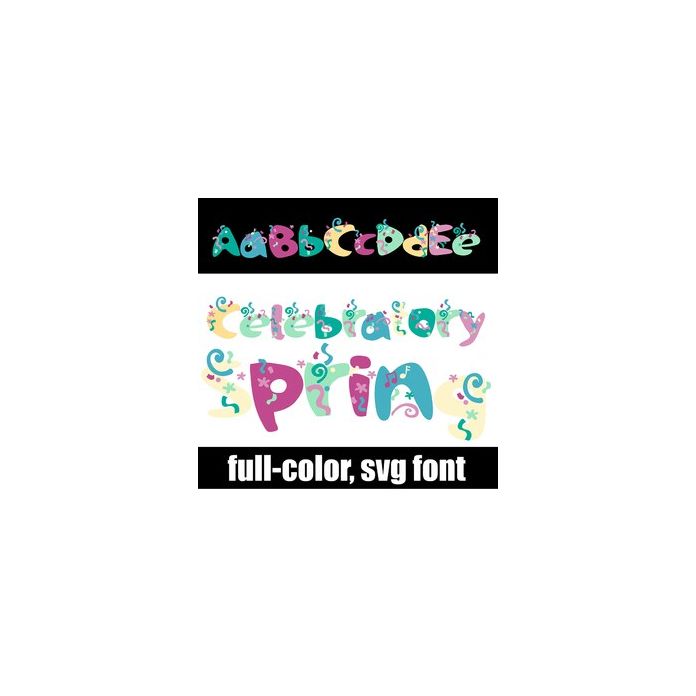
This full-color font features a spring color palette and whimsical lettering with confetti throughout. There is an alt case w/ additional colors you can access through your system or Silhouette's glyph map.